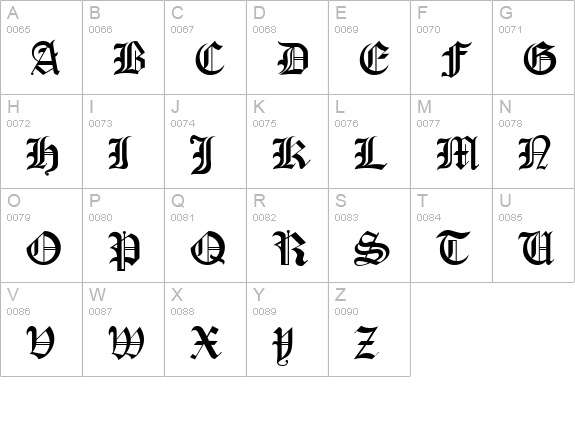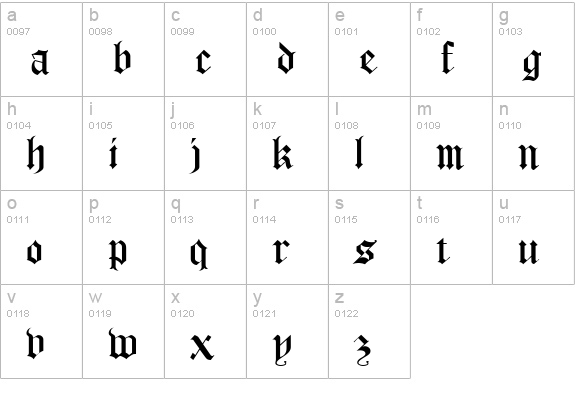
Castle Regular Font Details
Castle Regular is the standard, neutral variant in the Castle typeface family \xE2\x80\x94 well suited to general body text, paragraphs, and standard typographic work.
Castle Regular font is a sophisticated and elegant typeface that exudes a sense of timeless charm. Its clean lines and classic styling make it perfect for a wide range of design projects, from wedding invitations to branding materials. The font's balanced proportions and intricate details create a sense of refinement and sophistication that is sure to elevate any design it is used in. What sets Castle Regular font apart is not just its aesthetic appeal, but also its versatility. Whether you are working on a print design or a digital project, this font will bring a touch of sophistication and elegance to your work. Its legibility and readability make it a great choice for body text, headlines, and everything in between. And the best part? Castle Regular font is available for free download at FontsMarket.com. This means you can easily add this stunning typeface to your font library without breaking the bank. So why wait? Elevate your designs with Castle Regular font today!